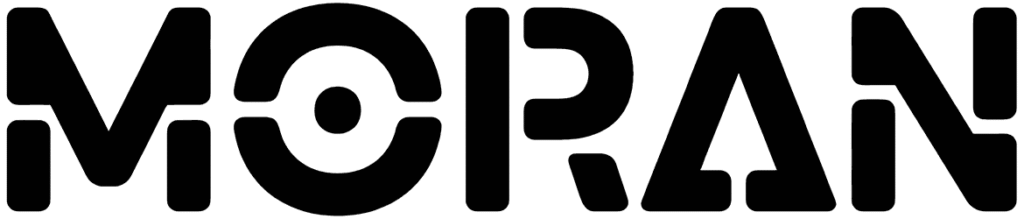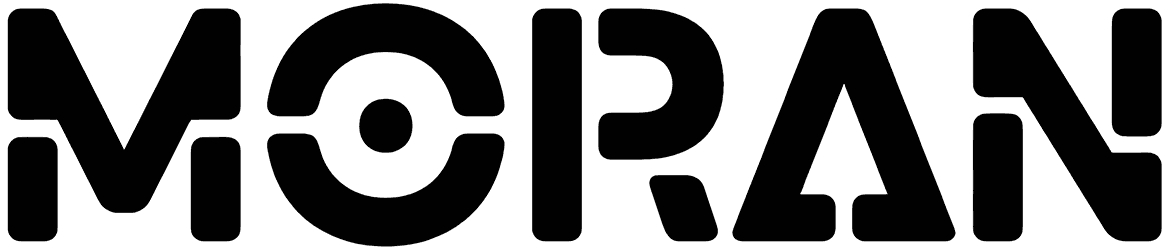
Moran Font
How often can you get 2 different styles from the same font? Moran is exactly one of those who will surprise you that way. With the first set of letters designed as a stencil font and another set of capitals with a strong futuristic flair, Moran can become one of your favorites.
Use it as a modern font for your bank logos, sci-fi movie titles, or website banners, and its army version to add some interesting visual cues to your lettering.